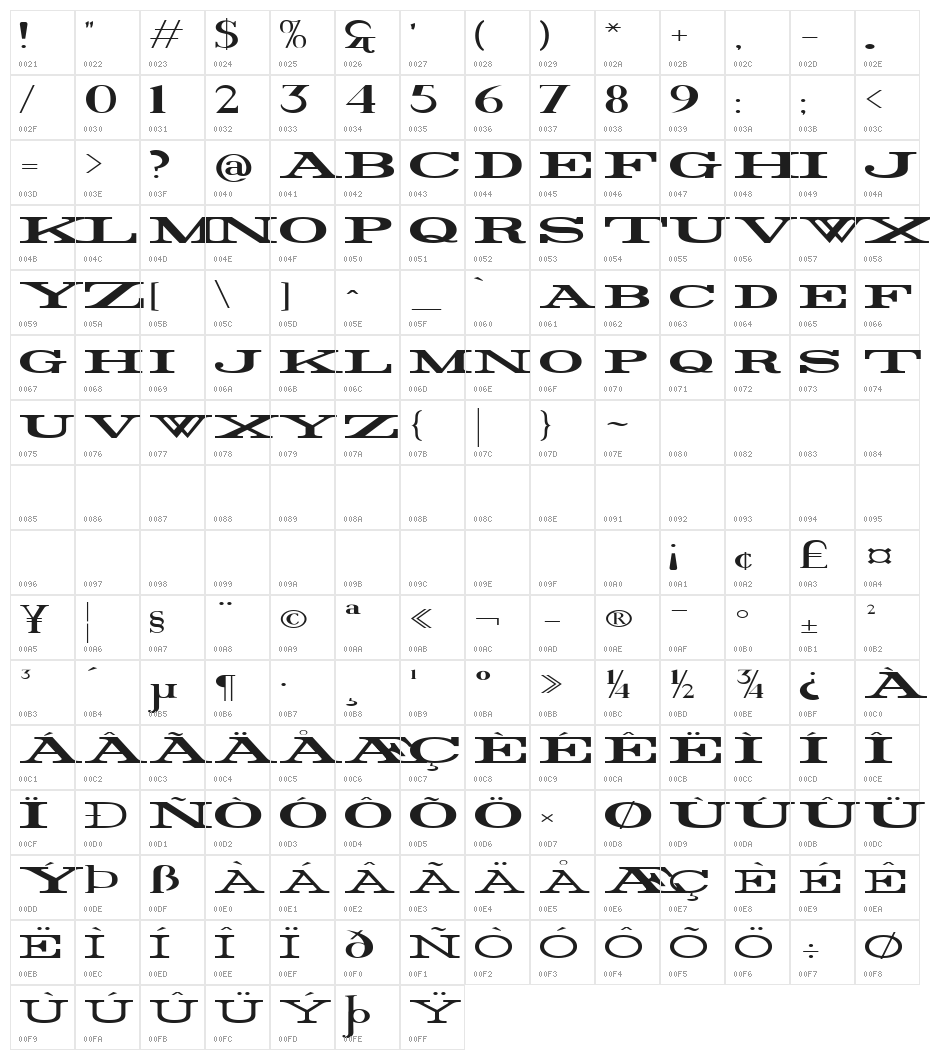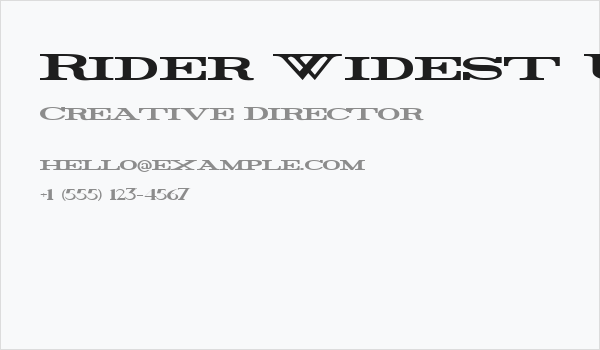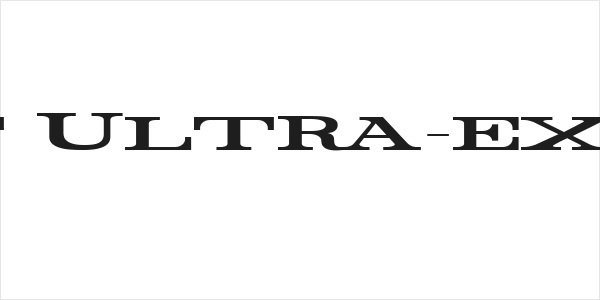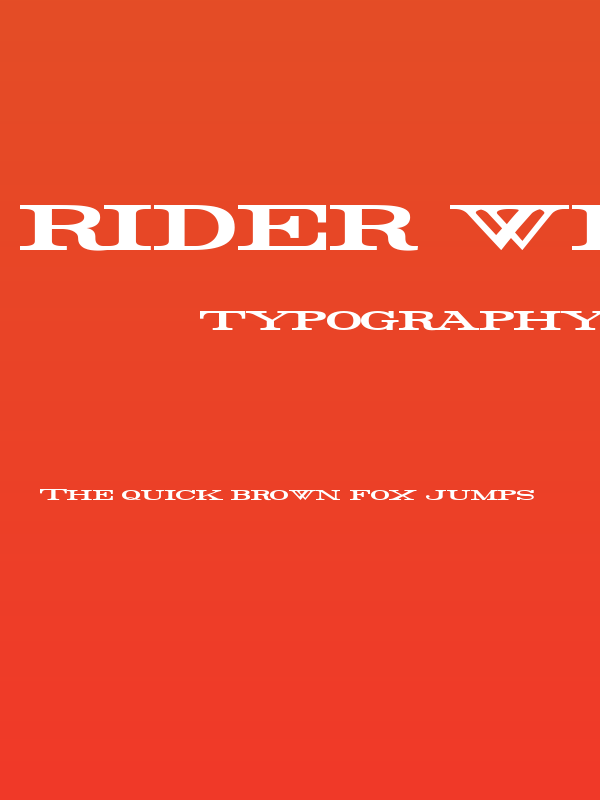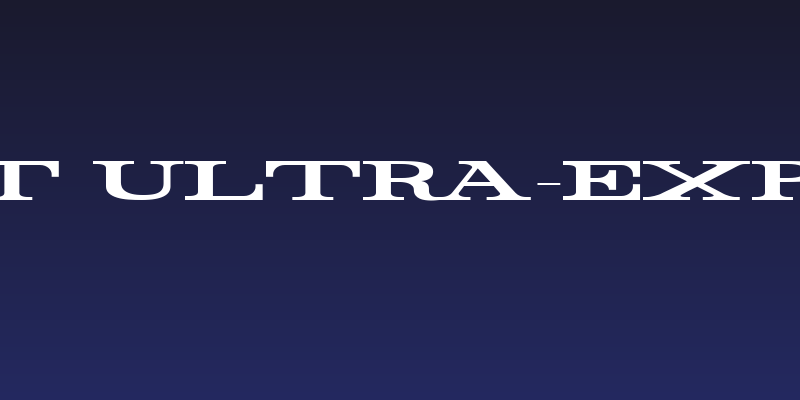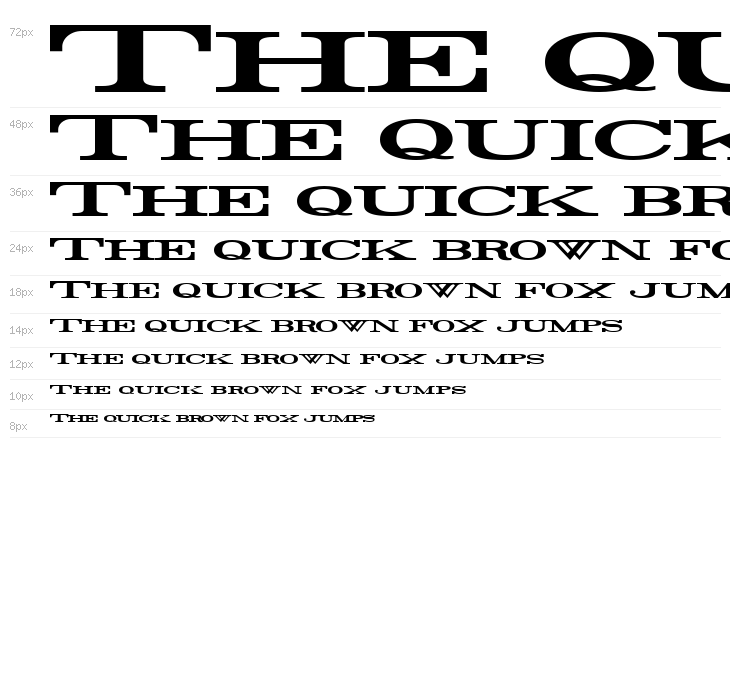
Rider Widest Ultra-expanded Bold Font
Rider Widest Ultra-expanded Bold Description
This font features a bold and ultra-expanded style, characterized by its wide letterforms and strong presence. The uppercase letters are particularly striking, with a distinct serif that adds a touch of elegance and sophistication. The numerals are equally bold, maintaining the wide stance that defines the overall aesthetic. Special characters are designed with the same attention to detail, ensuring consistency across all glyphs. This font is ideal for making a statement, with its high contrast and dramatic appearance.